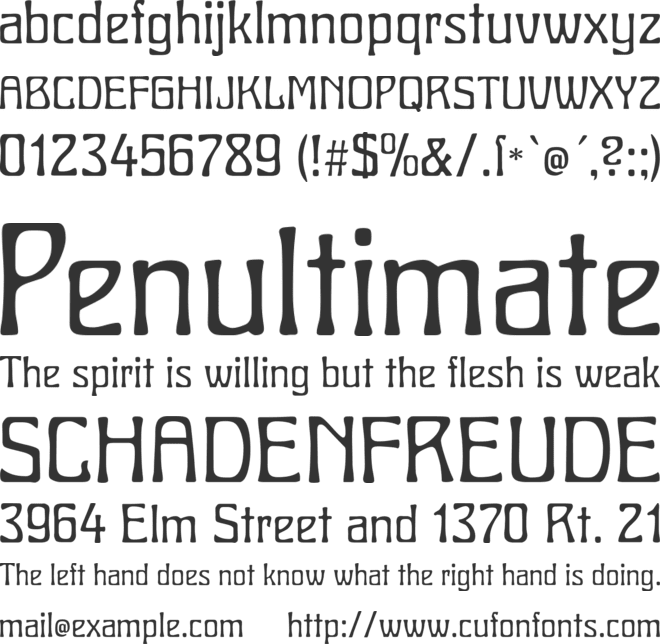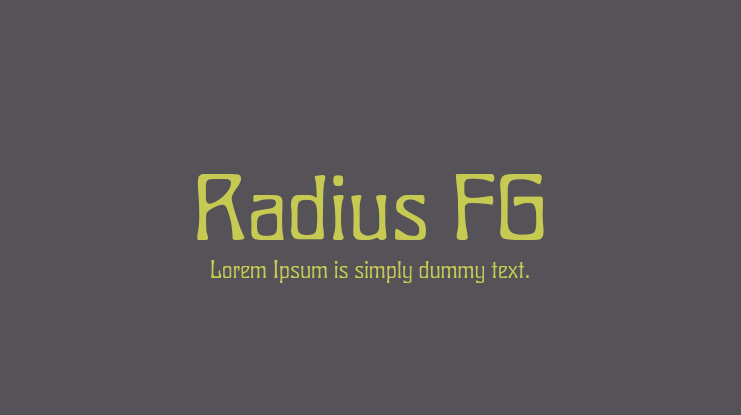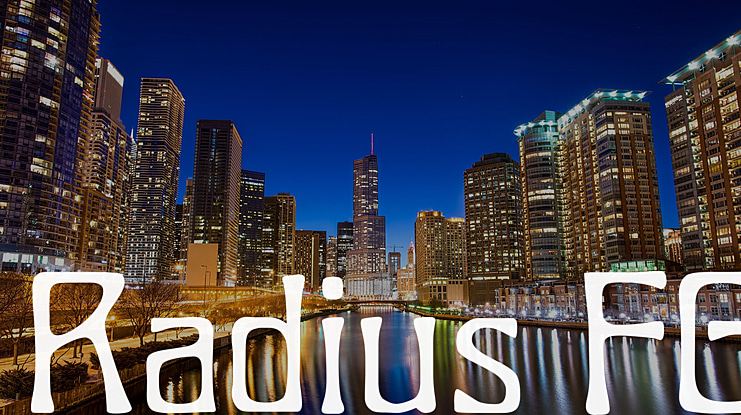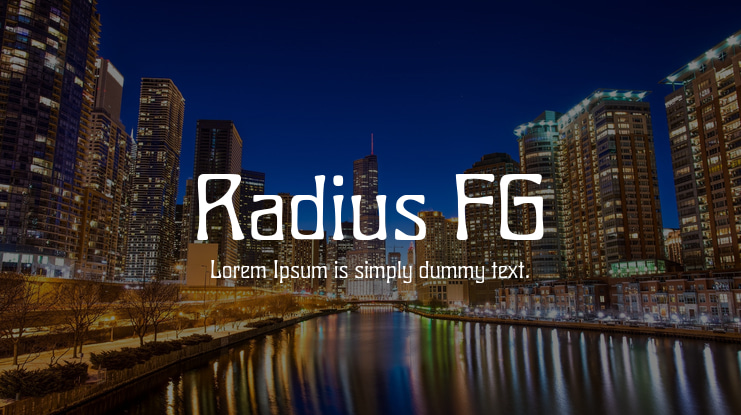
Radius FG Font Family
digitized Andreas Höfeld
Radius FG is a new digitisation of the Art Nouveau hot-metal font Radium, published in 1905 by the German typefoundry Ludwig & Mayer.
The bold weight of this typeface became popular again in the 1970s on album and book covers after Hubertus Carl Hace Frey had reworked it under the new name Charleston.